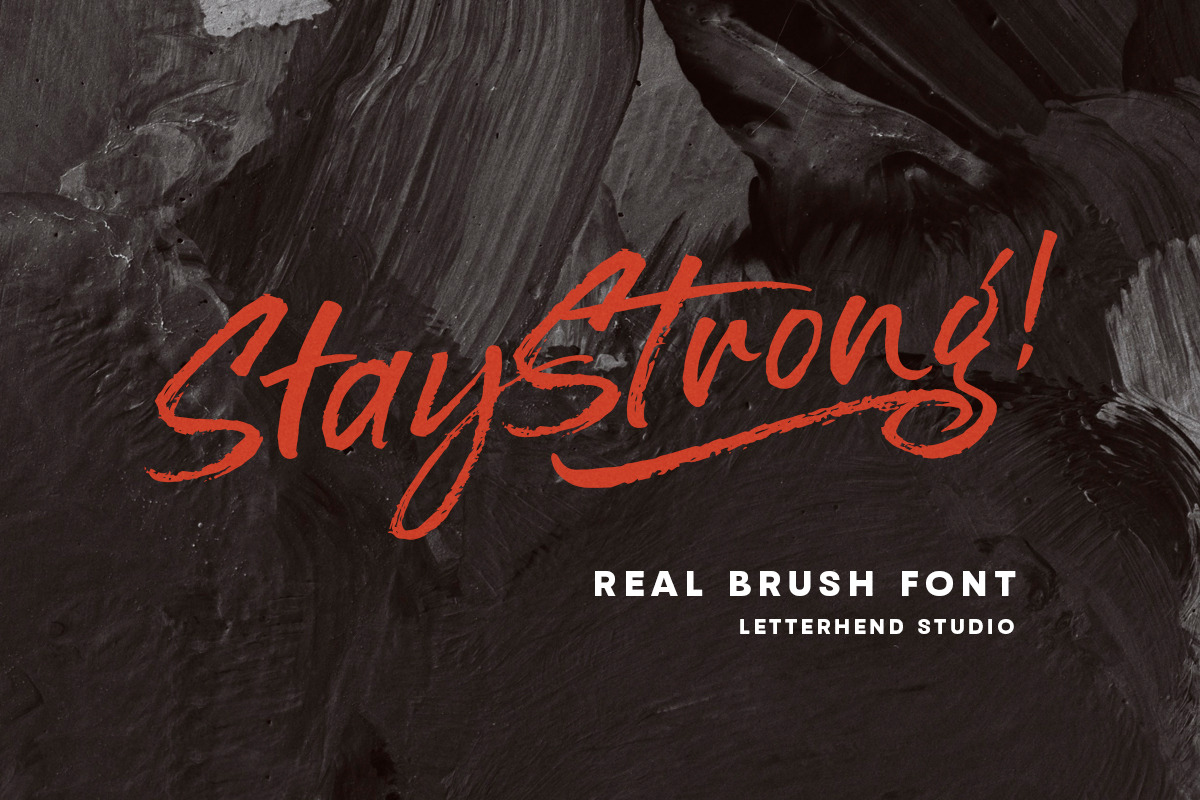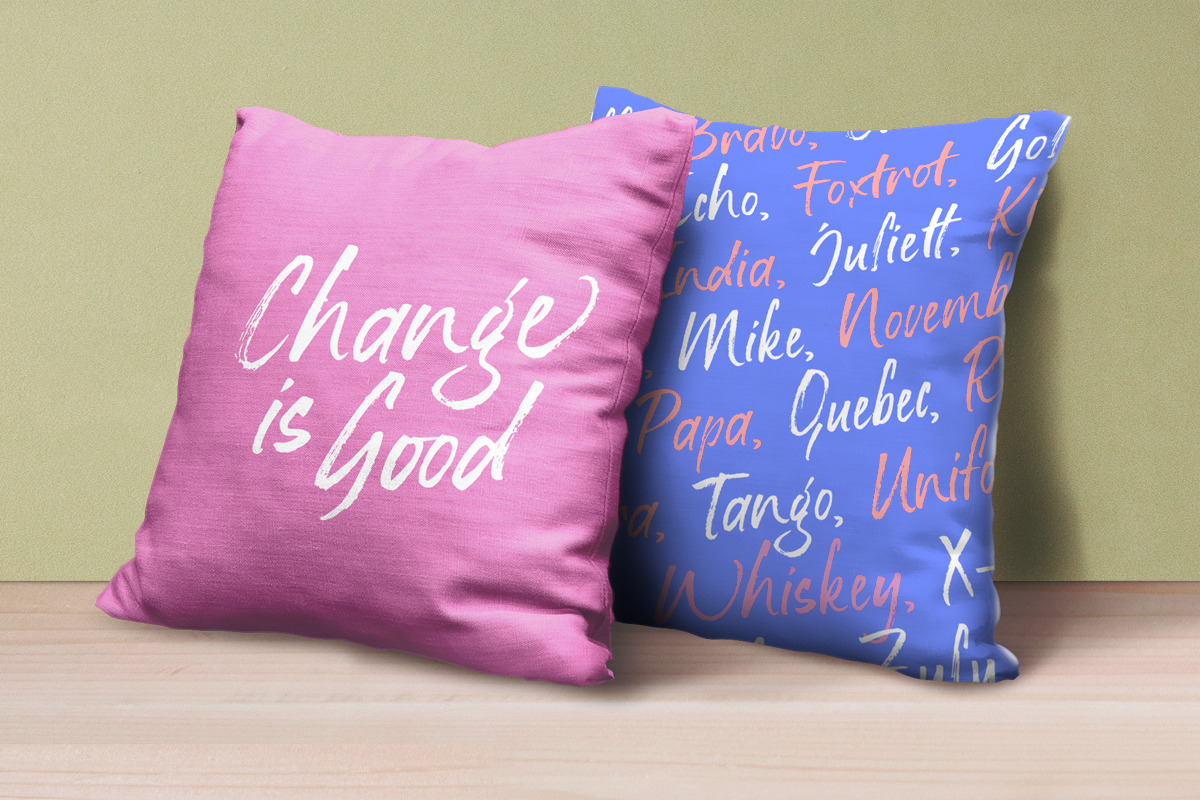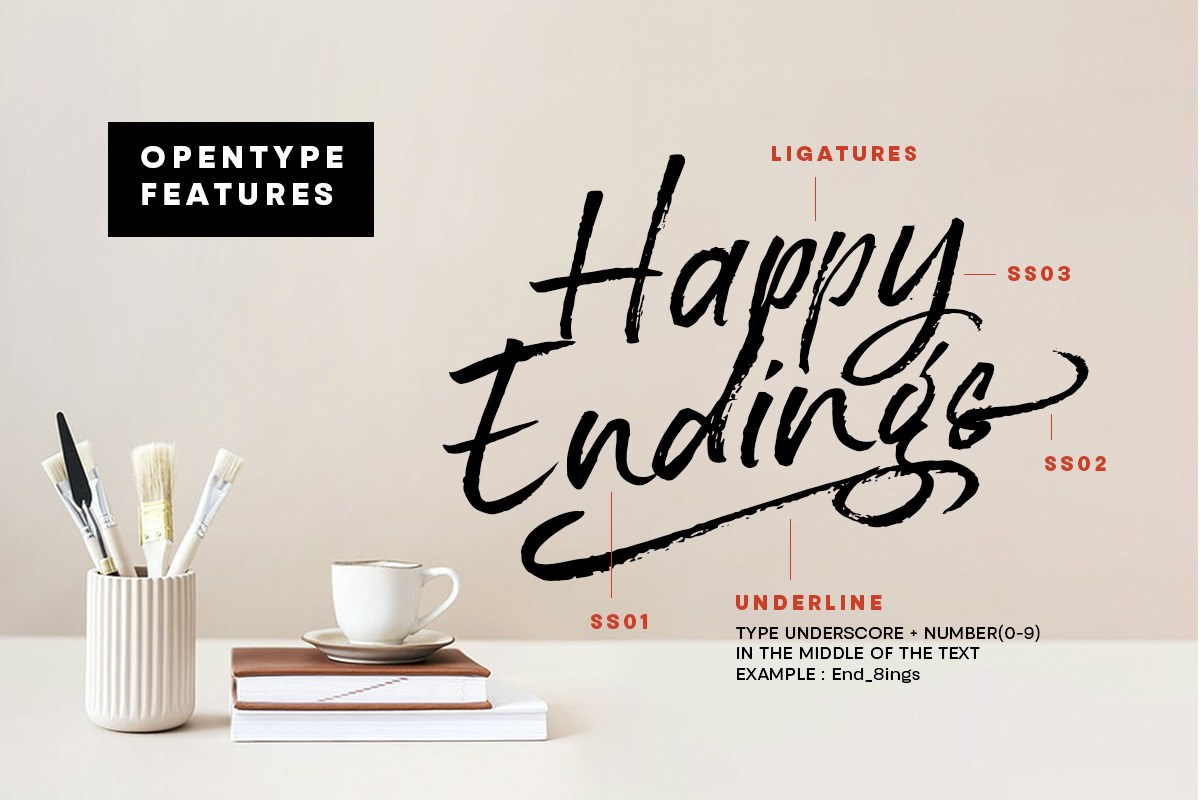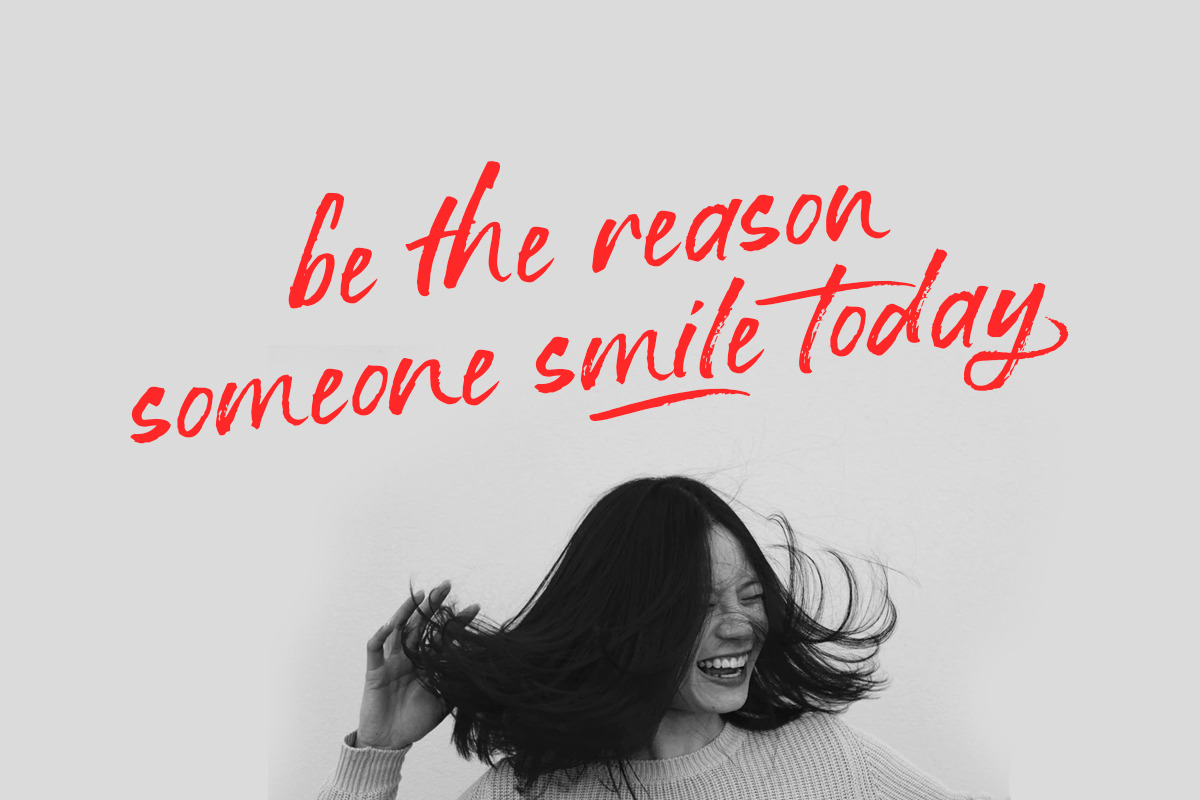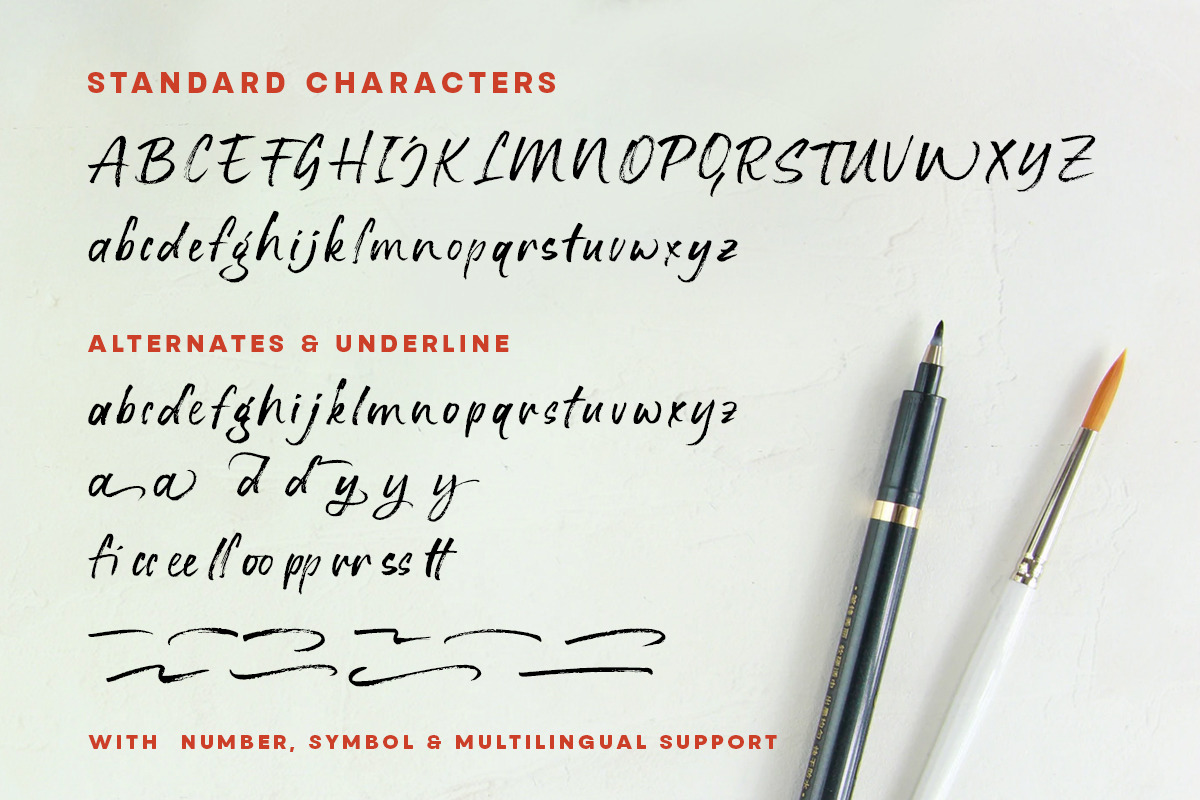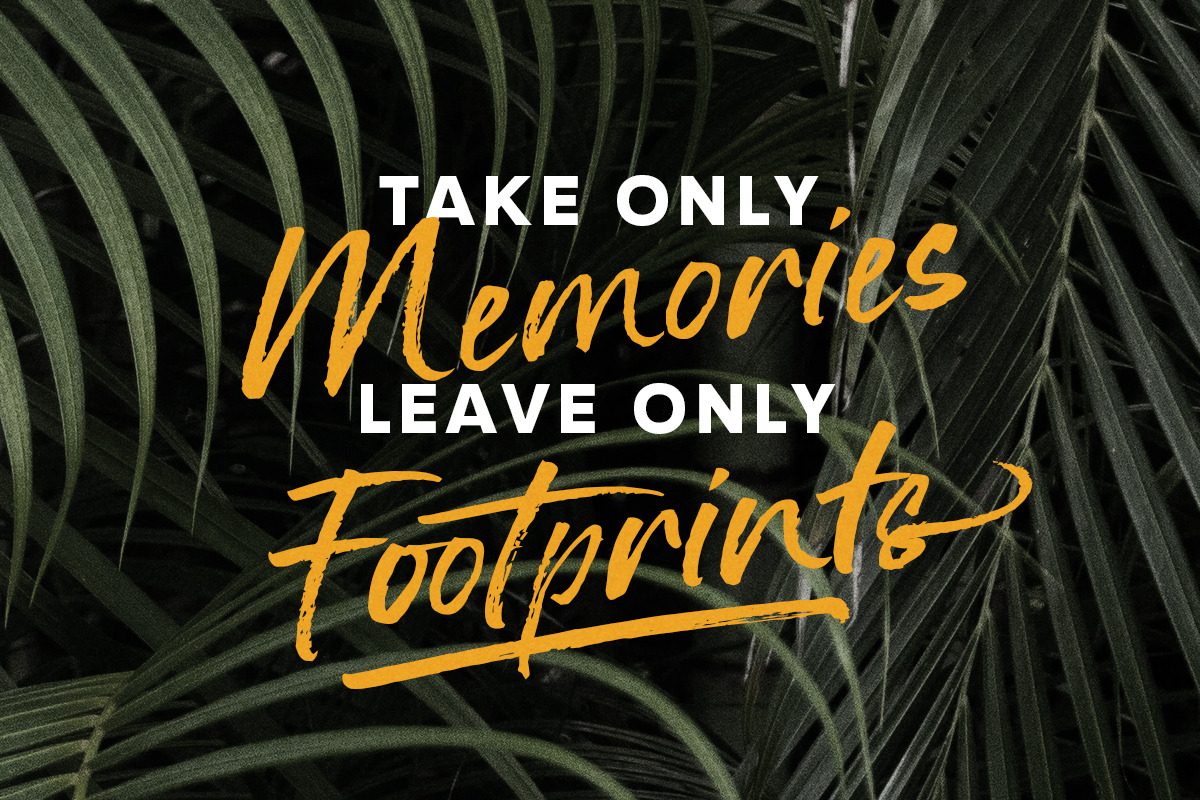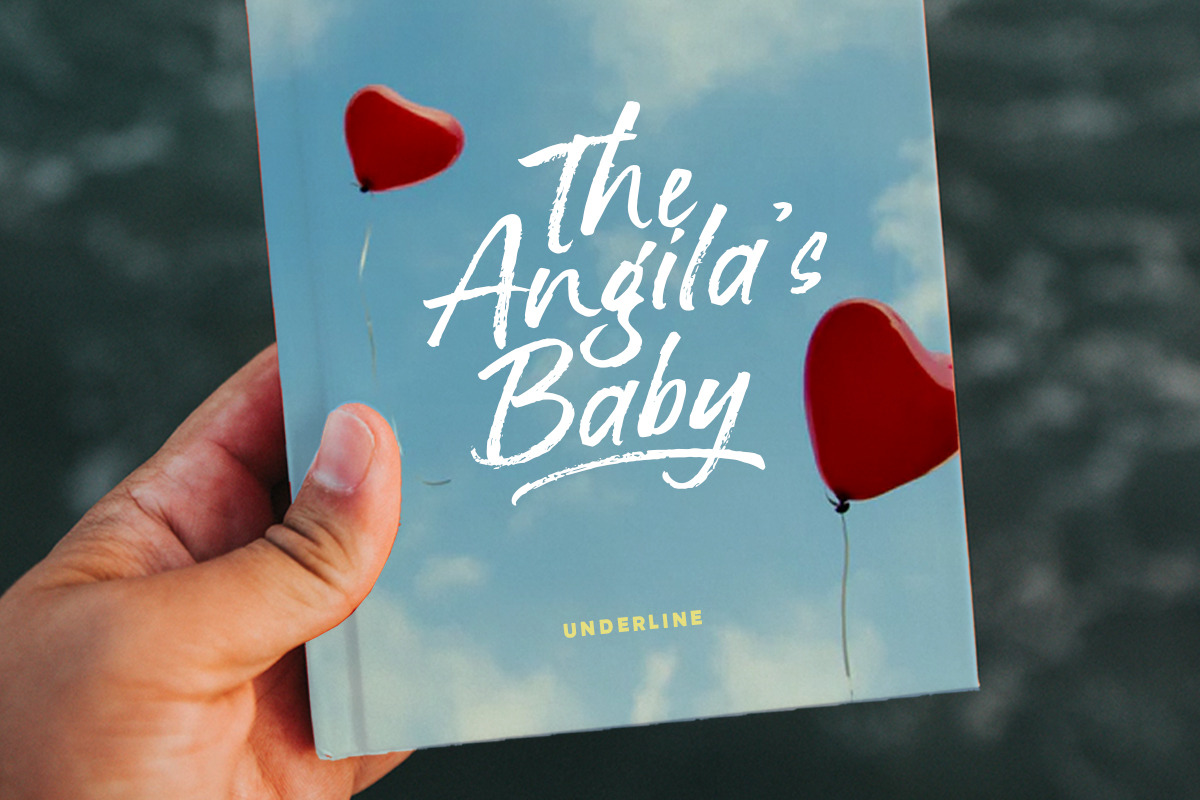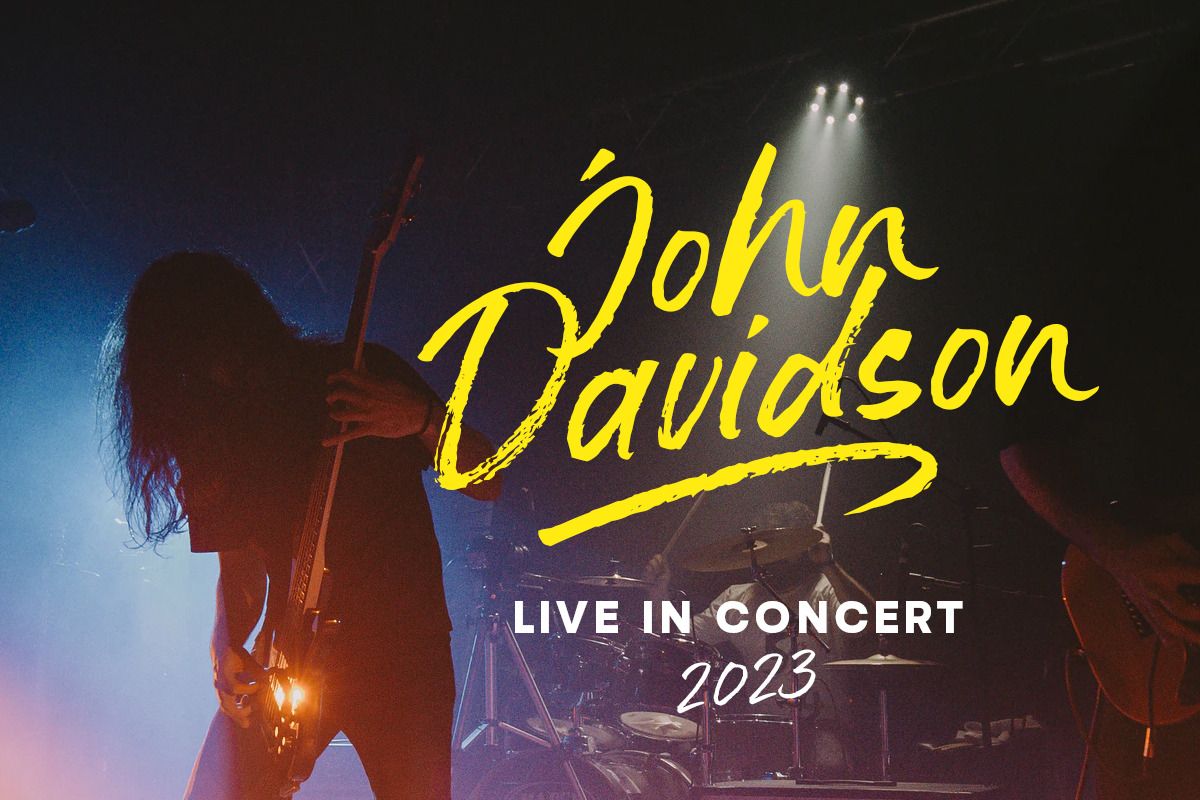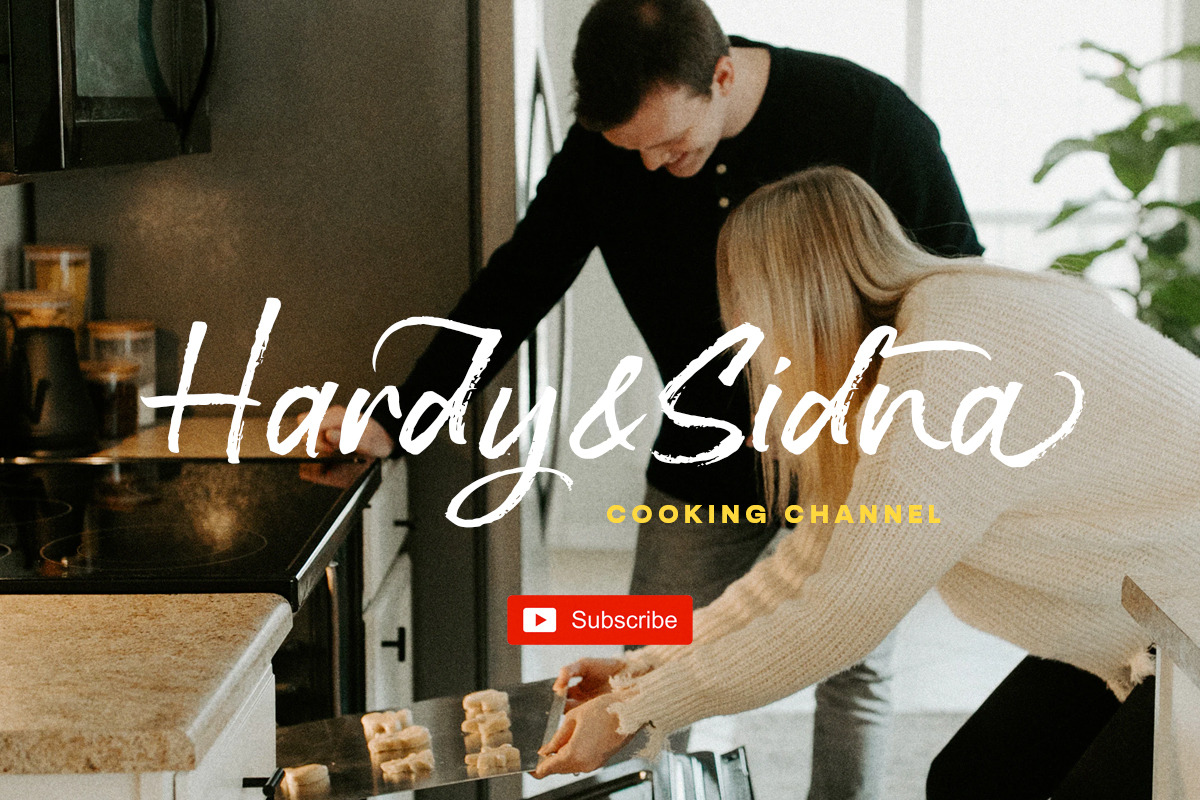
Stay Strong - Dry Brush Font
Stay Strong is a hand drawn dry brush script which is purposely made for headline, display or logotype, and signature. This type of font perfectly made to be applied especially in logo, and the other various formal forms such as invitations, labels, logos, magazines, books, greeting / wedding cards, packaging, fashion, make up, stationery, novels, labels or any type of advertising purpose.
- alternates & ligatures